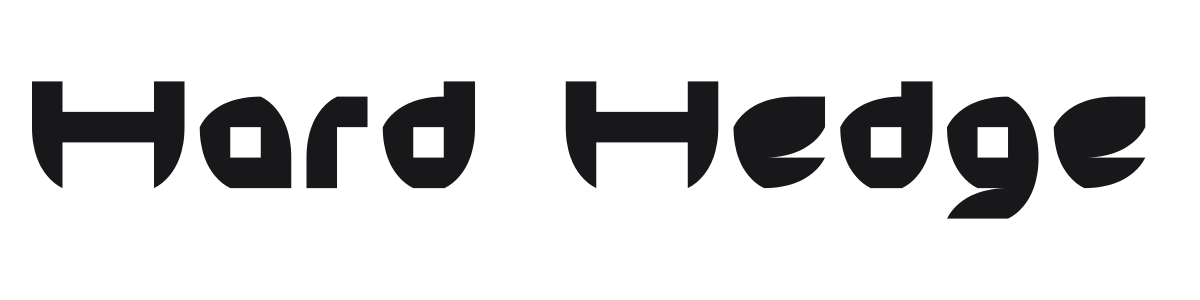
Hard Hedge
Hard Hedge is a heavy geometric display font built from thick, rounded forms that push counter spaces to their absolute limit. Characters feel almost inflated, with cutouts replacing conventional open counters in a way that gives the design a distinctly retro-futuristic, almost alien quality. It works at large sizes where its bold modularity can command attention.